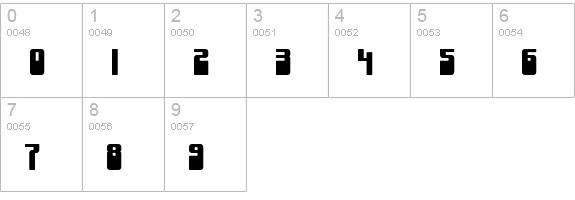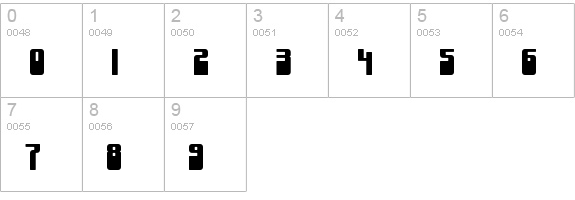
Groove Machine Upright Font Details
Groove Machine Upright font is a stylish and versatile typeface that exudes a sense of energy and movement. Its bold and dynamic letterforms make it perfect for titles, headlines, and other attention-grabbing design projects. With its unique vertical orientation, this font adds a modern touch to any composition. What's even better is that Groove Machine Upright font is available for free download at FontsMarket.com. This means you can easily incorporate this eye-catching font into your designs without any cost. Don't miss out on the opportunity to add a touch of groove to your projects with Groove Machine Upright font. Download it now and let your creativity flow!